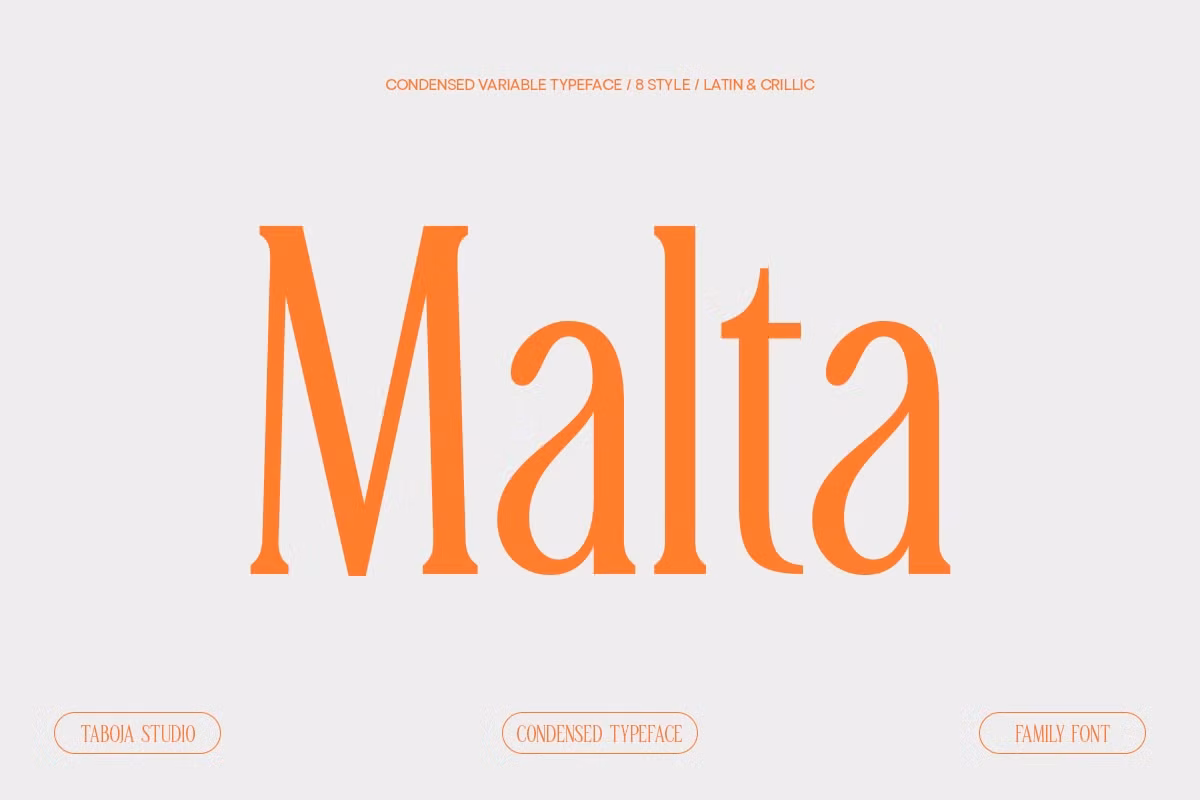
TBJ Malta 9-Font Family Free Download is a comprehensive and versatile typeface collection that includes nine different fonts, each offering a unique style within the family. Designed to be both functional and creative, this font family is perfect for everything from branding, editorial design, and digital interfaces to logo creation and print materials.
With a mix of weights, styles, and variations, TBJ Malta provides flexibility for a wide range of design projects. Whether you're crafting a bold headline, a refined logo, or clean body copy, this font family ensures you have the right type for every application.